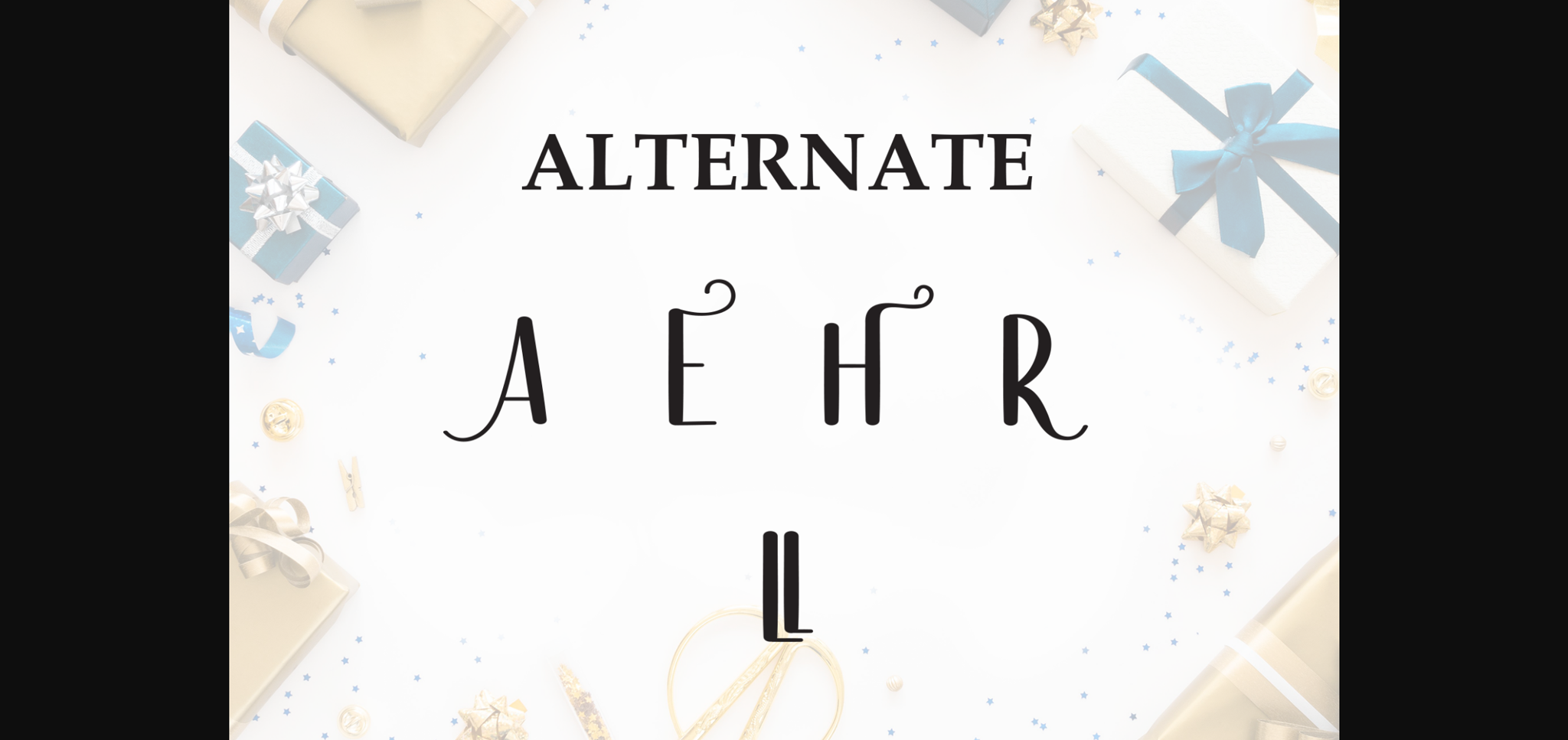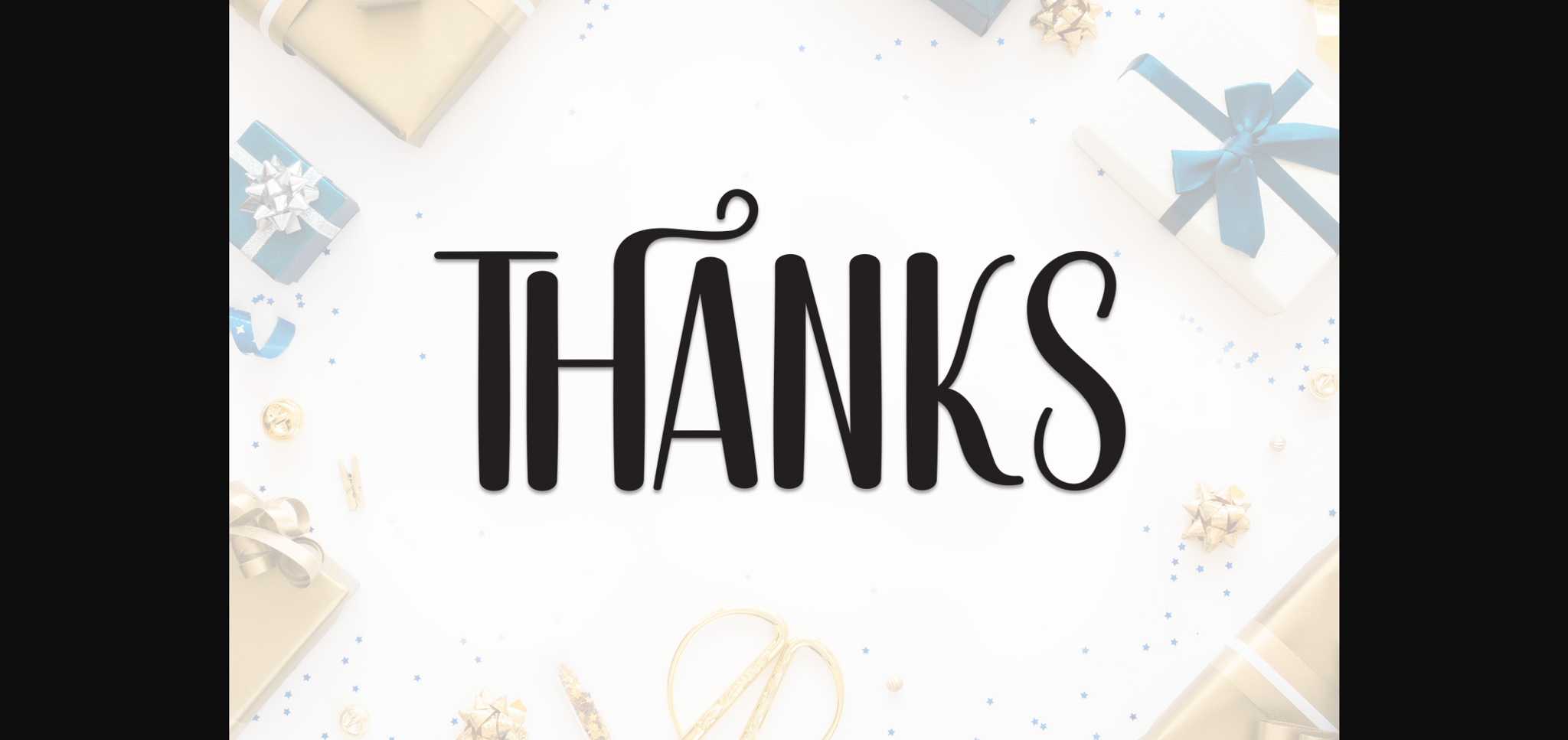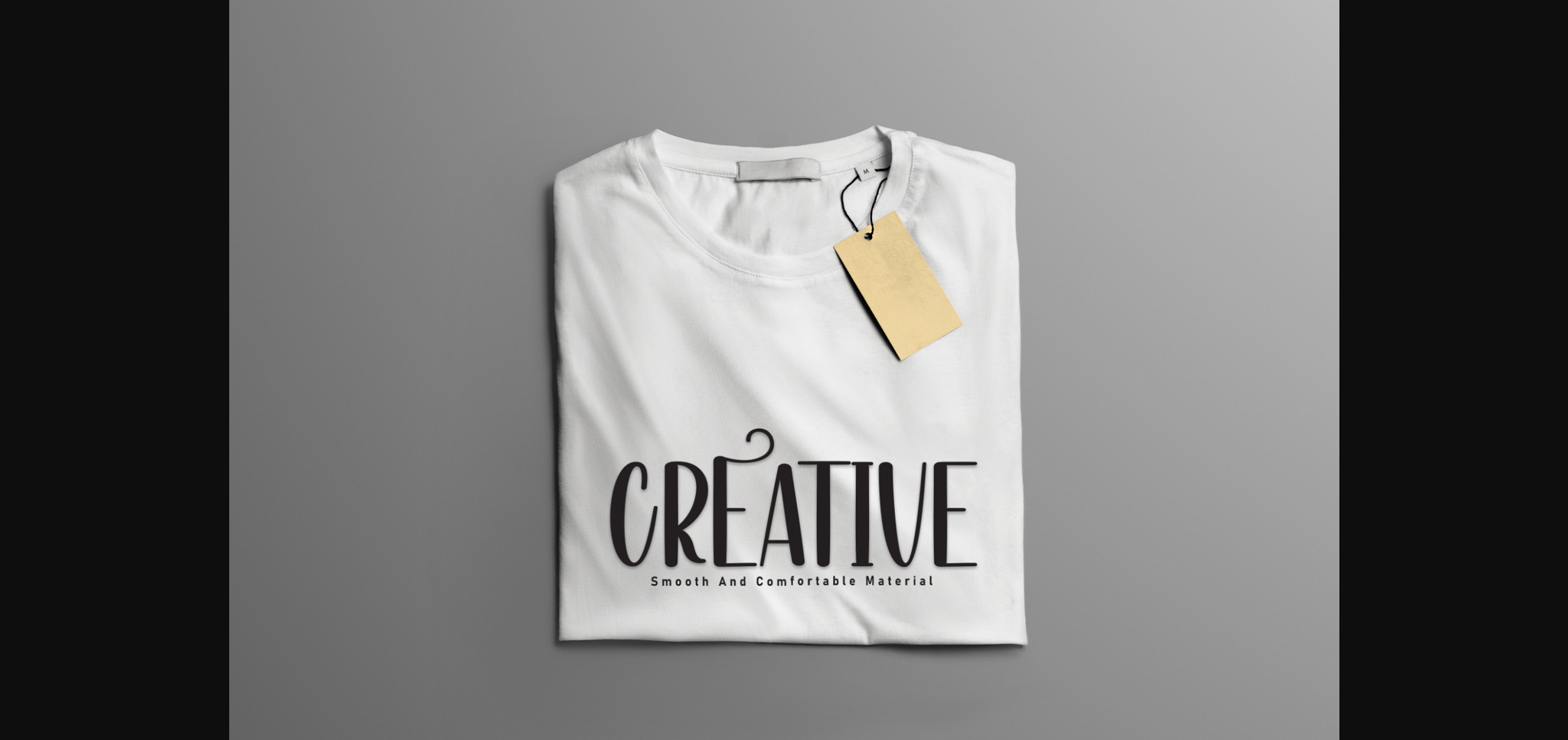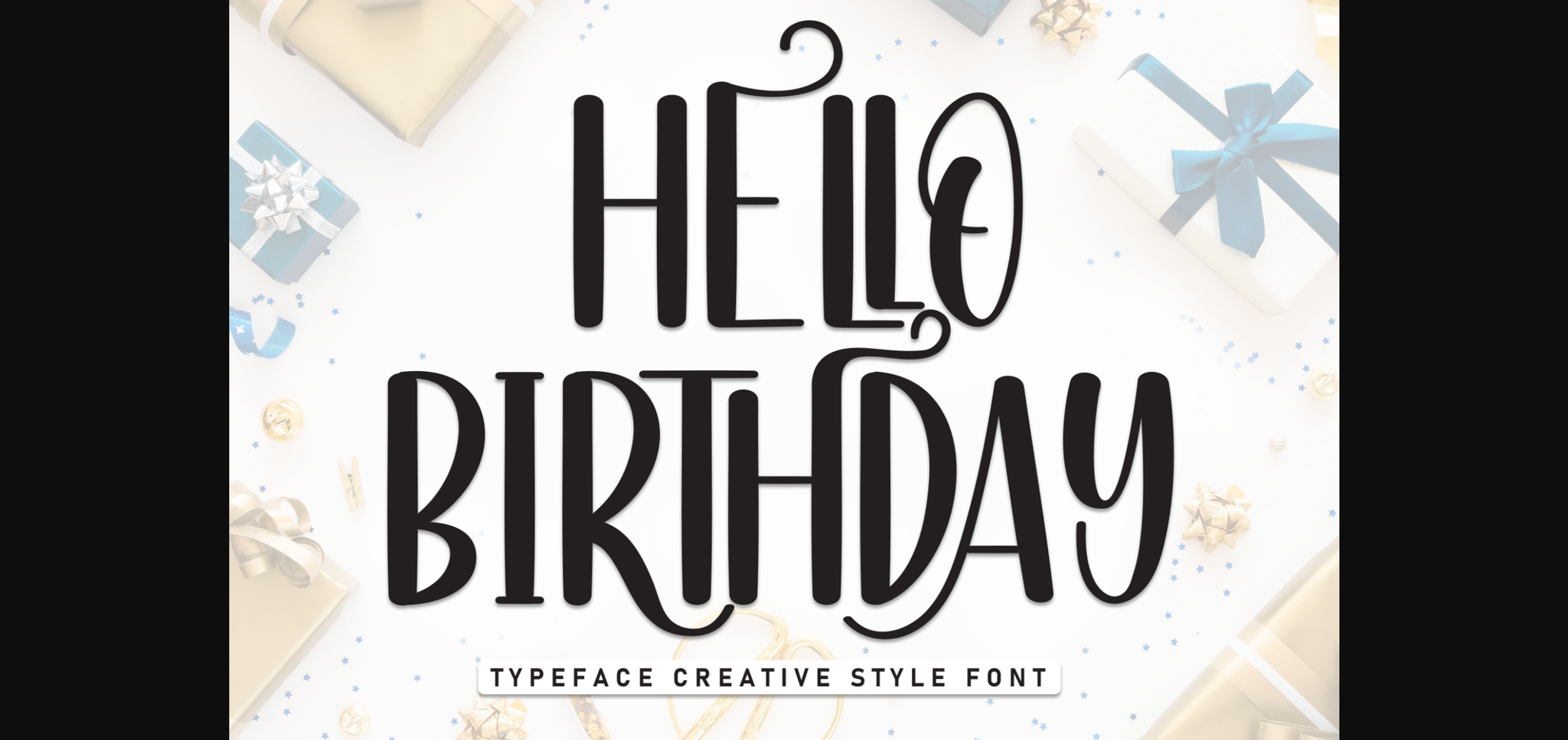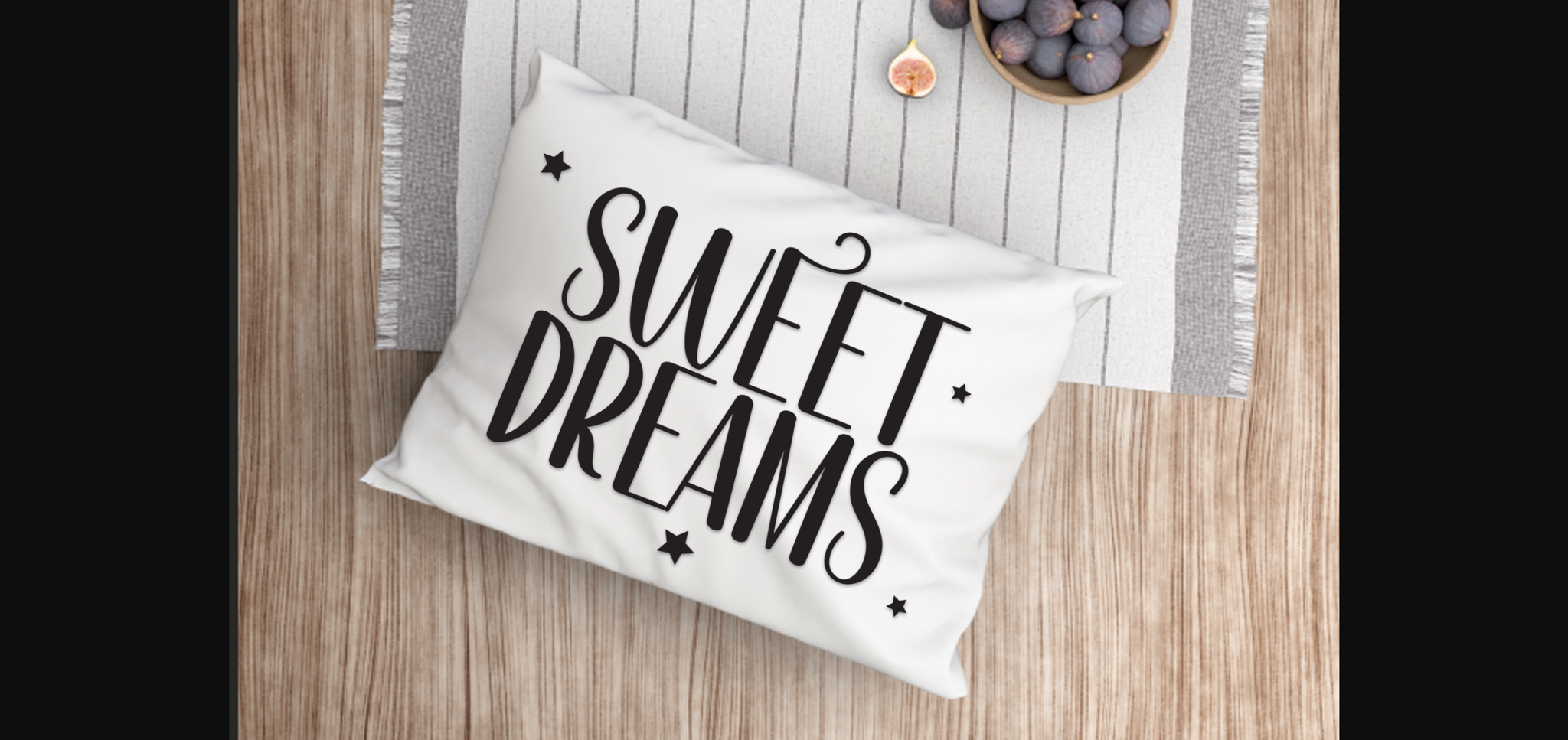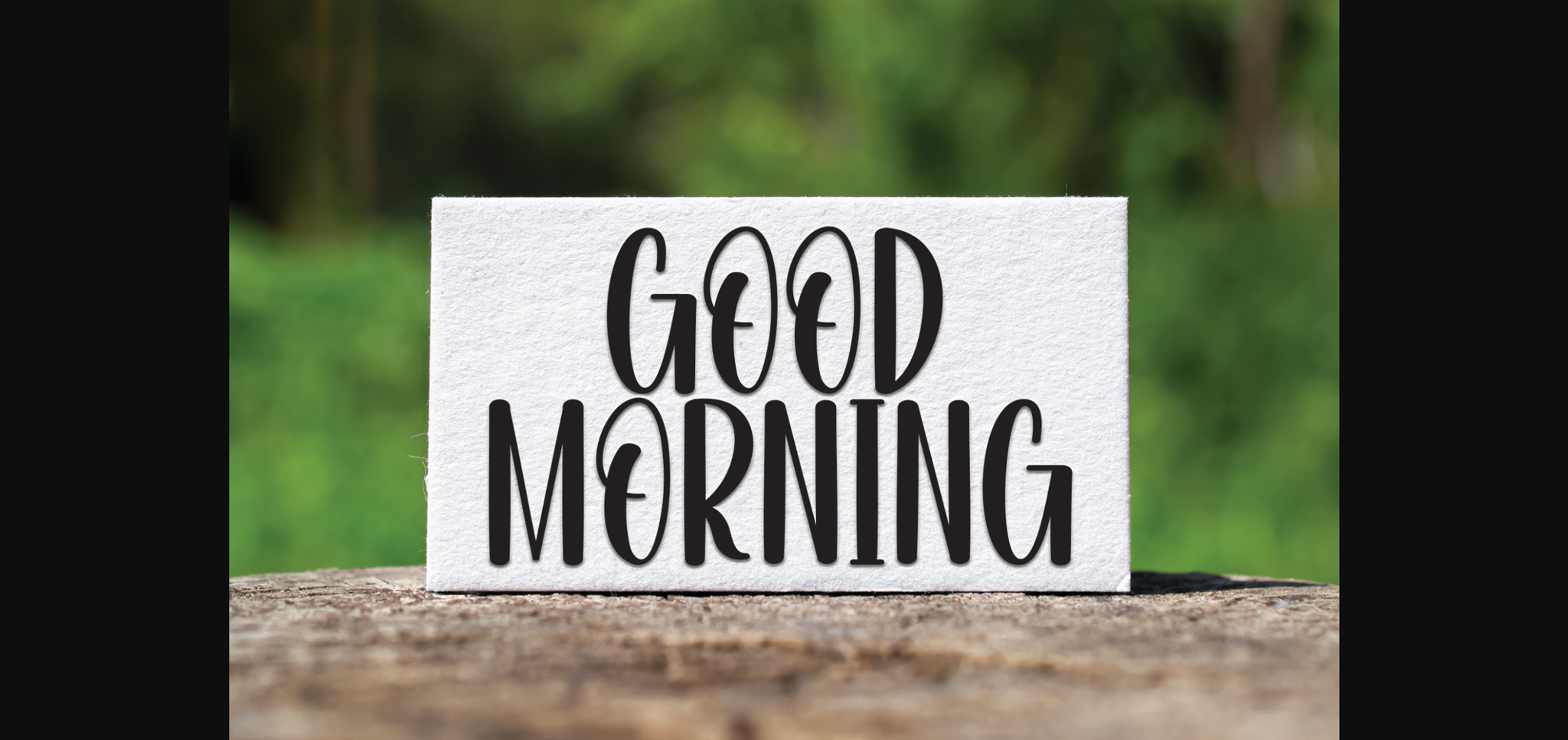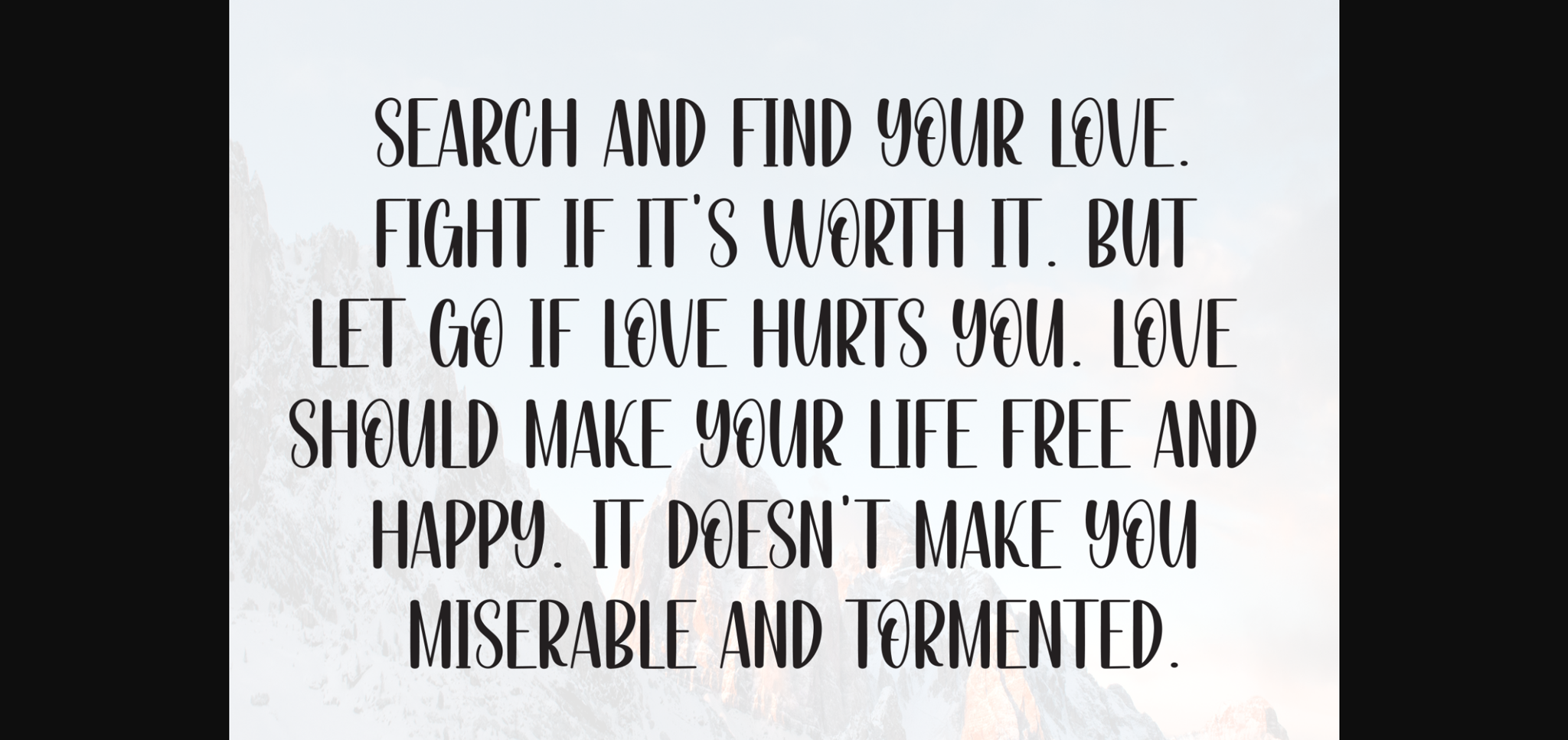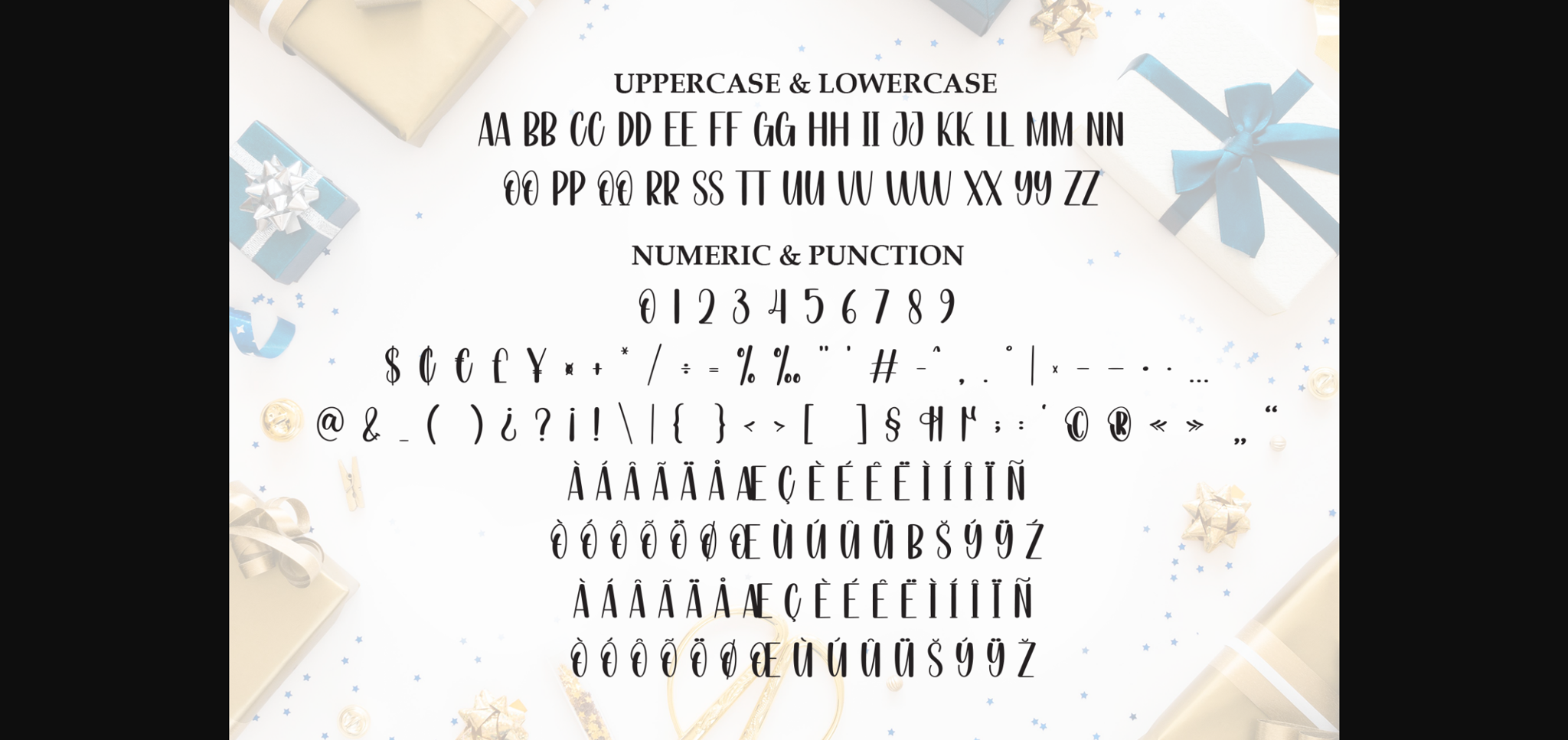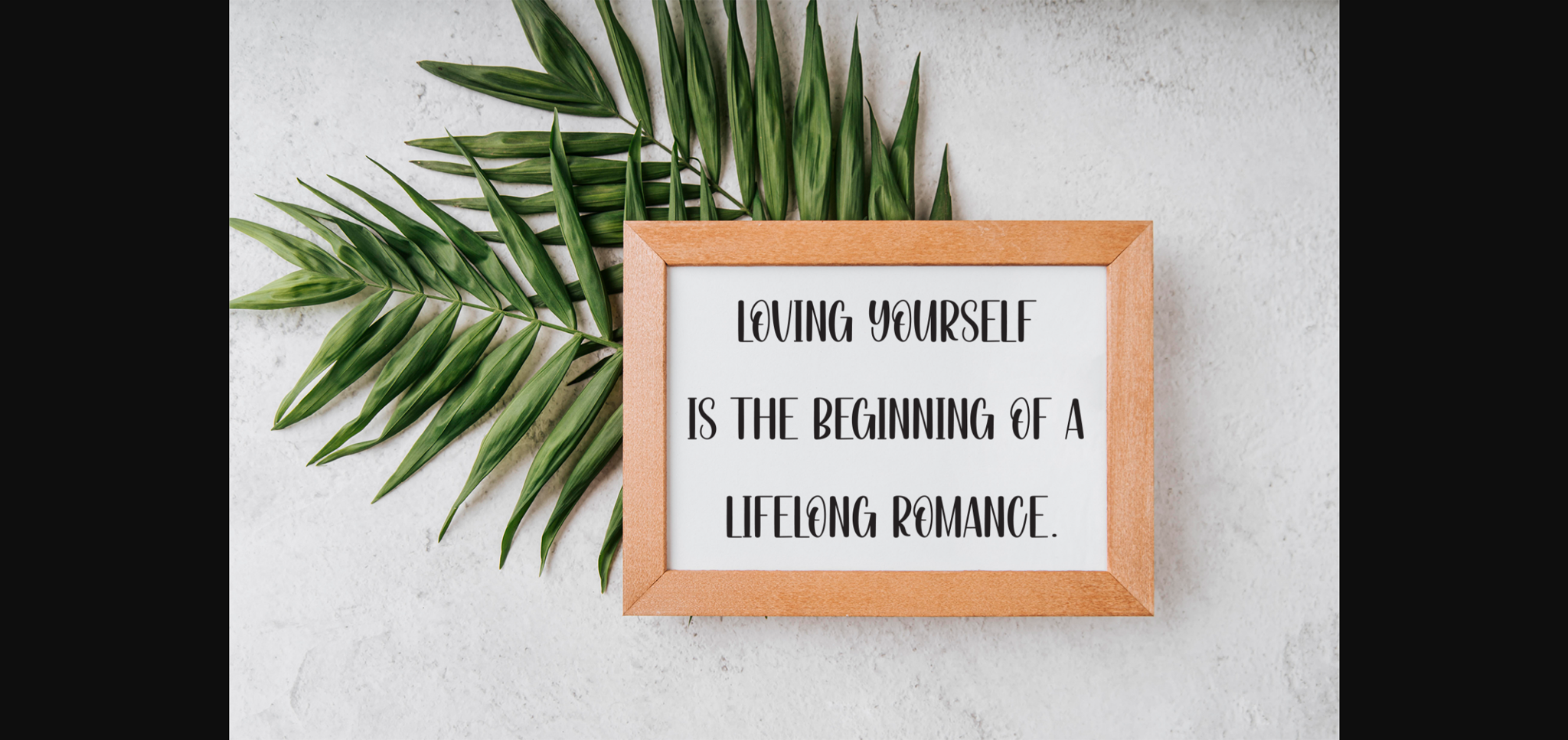
Hello Birthday Font
About Hello Birthday Font
Hello Birthday is a neat and casual sans-serif font that combines simplicity with a touch of warmth. With clean lines and balanced proportions, it exudes a friendly and approachable vibe. Perfect for various design projects, Hello Birthday brings a modern and versatile style to your typography repertoire.